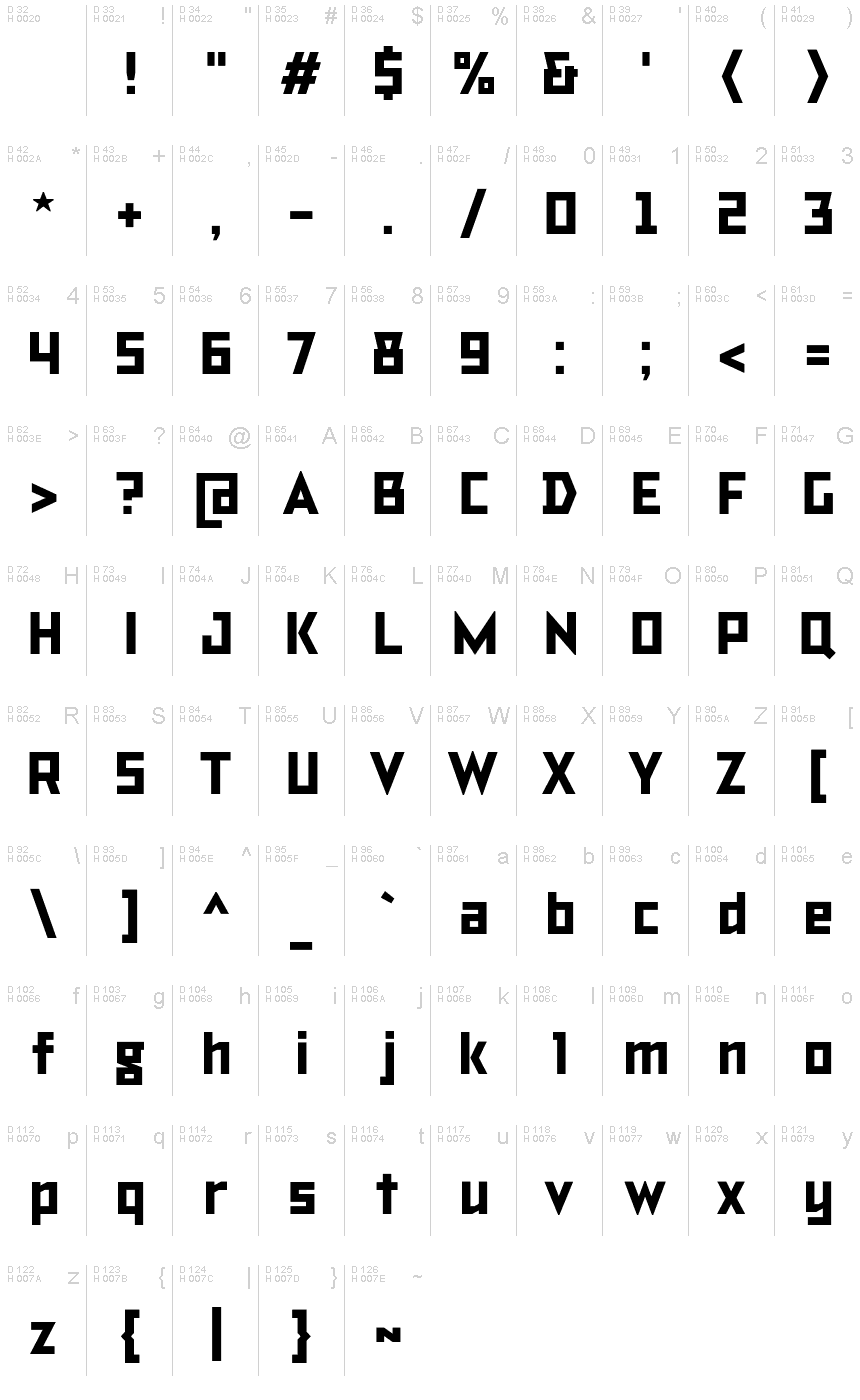
TT Bricks Extrabold is a dynamic display font that packs a punch with its bold weight and techno style. Created by TypeType Foundry, this font family is perfect for projects that demand attention and convey a futuristic feel. Use it for branding, packaging, posters or any project that needs to make a bold statement. The geometric shapes of this semi-condensed font create a modern look that's versatile enough to be used in various design styles. Whether you're creating an edgy website or designing an album cover, TT Bricks Extrabold will add the perfect touch of sleekness to your project.
Presentazione e campione visivo del carattere TT Bricks Trial Extrabold